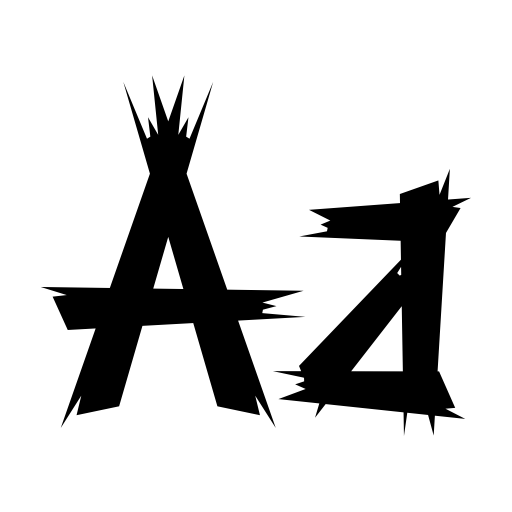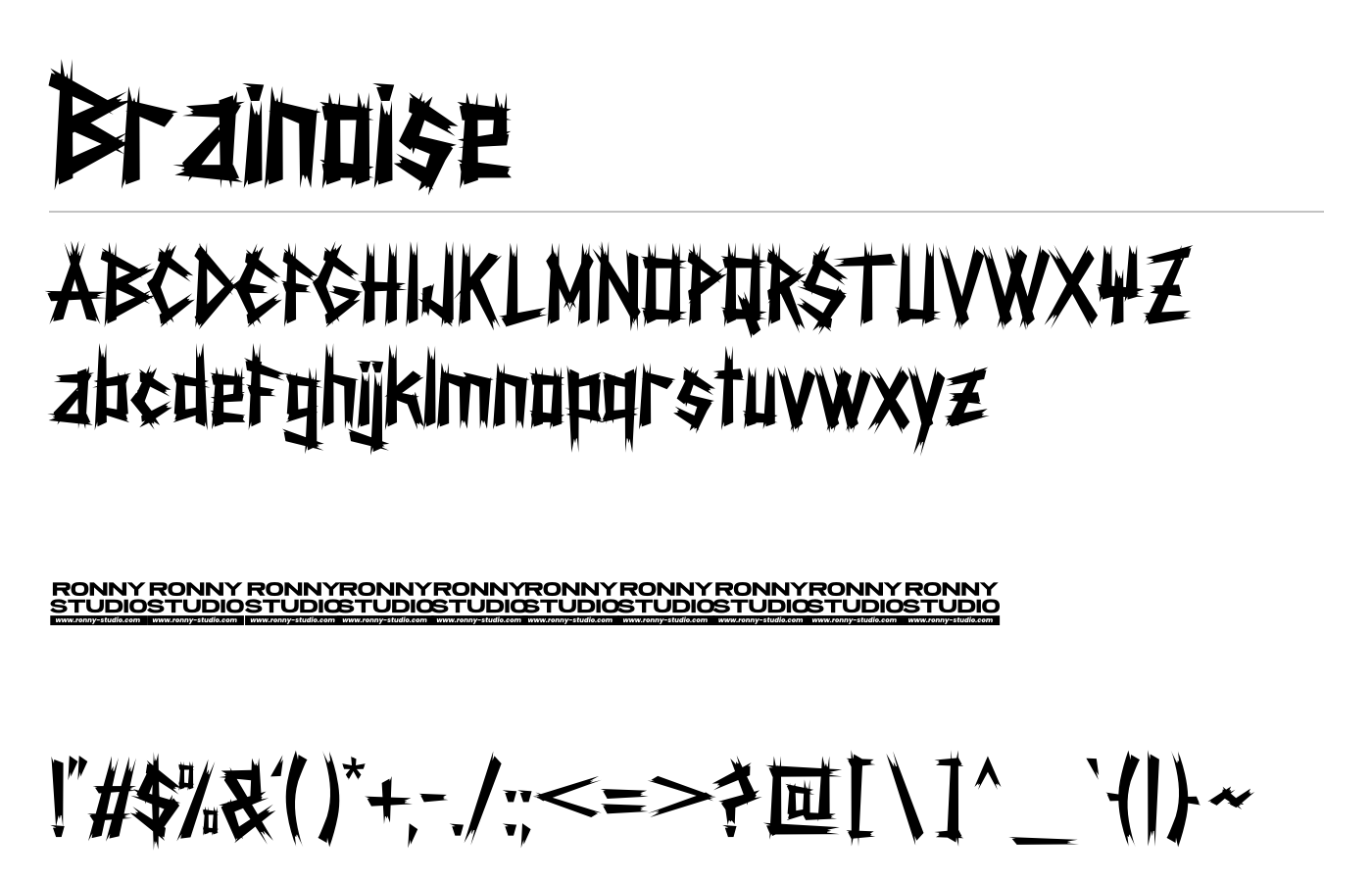
Brainoise is a bold, edgy sans serif font characterized by sharp, jagged strokes that give it a chaotic, distressed appearance. Its irregular letterforms and high contrast in stroke angles create a sense of energy and intensity, making it ideal for expressive, alternative designs like posters, music album covers, and branding that demands a rebellious, striking look. This font works best in display sizes where its unique style can grab attention and convey a strong, unconventional personality.
Brainoise Font
About Brainoise Font
| Font family | Brainoise Font |
| Designer | Rony Rizki Jaya |